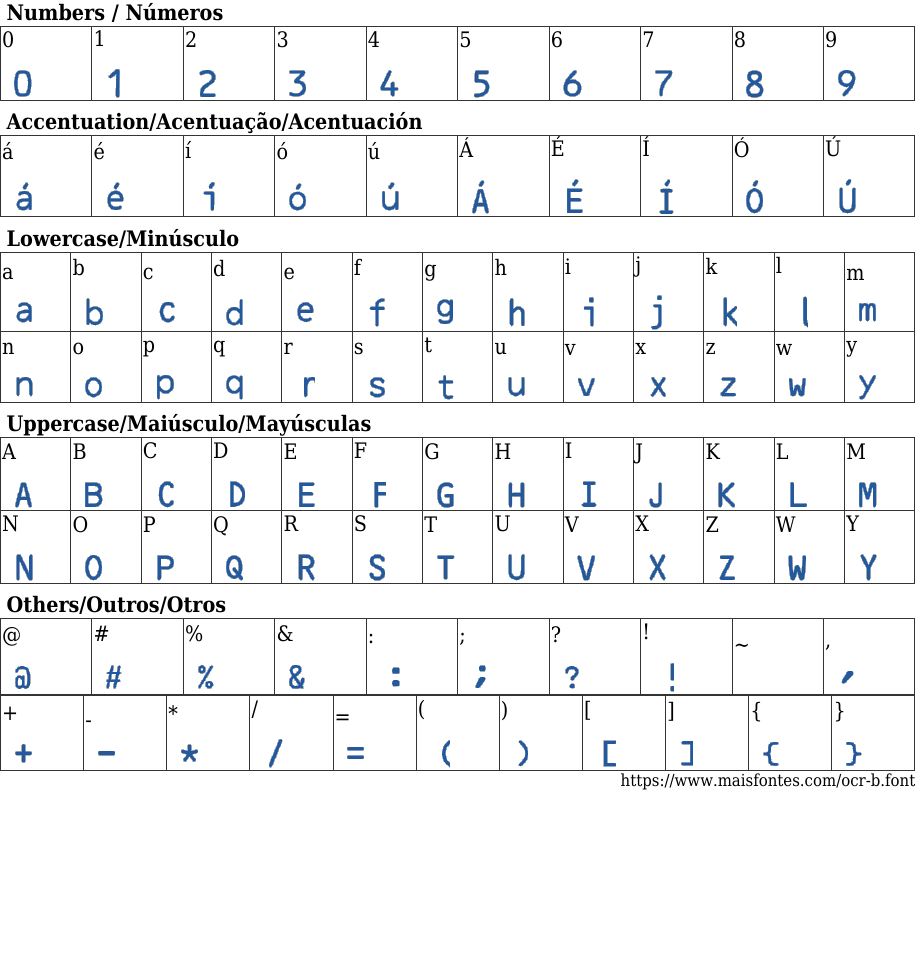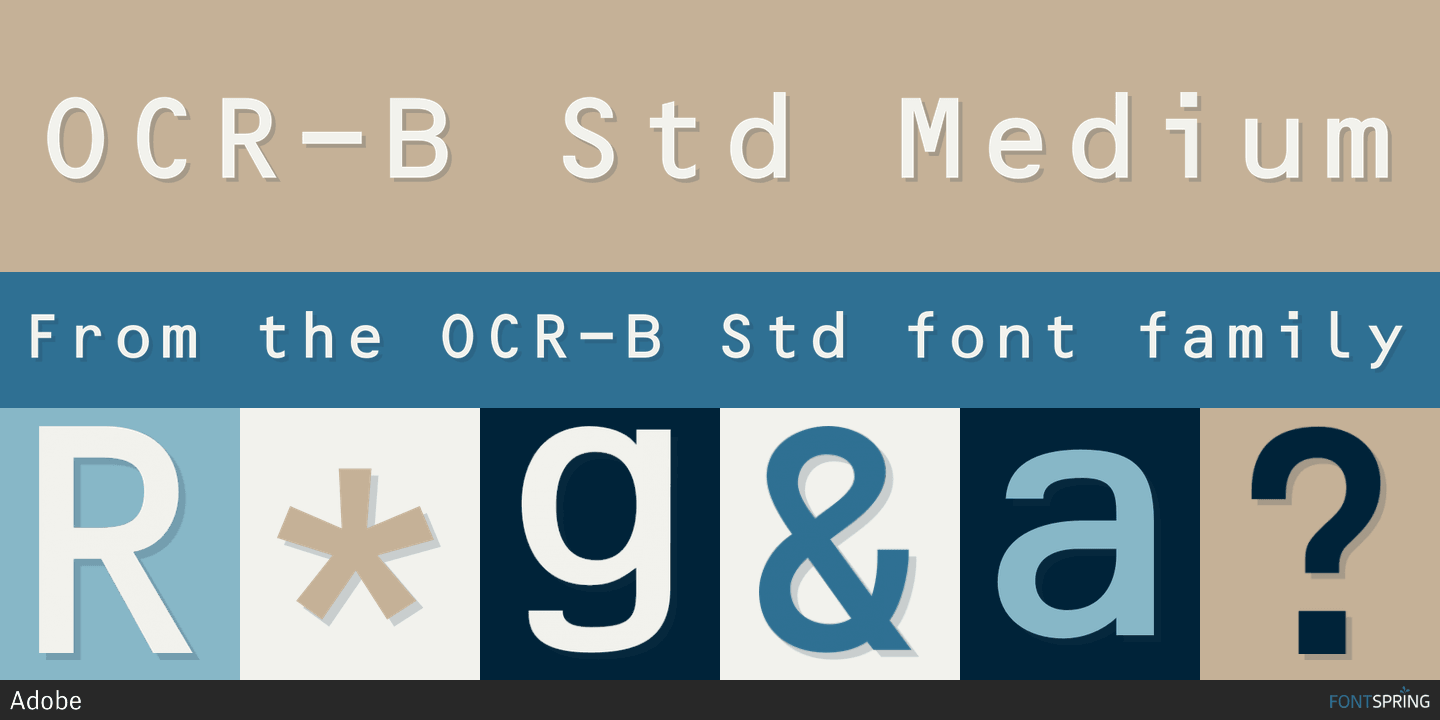
Ocr B Font - This design pushes the limits of the. It falls under the regular. Ocr b regular is an excellent choice of font for your playful designs.
Ocr b regular is an excellent choice of font for your playful designs. This design pushes the limits of the. It falls under the regular.
It falls under the regular. Ocr b regular is an excellent choice of font for your playful designs. This design pushes the limits of the.
This design pushes the limits of the. It falls under the regular. Ocr b regular is an excellent choice of font for your playful designs.
Ocr b regular is an excellent choice of font for your playful designs. This design pushes the limits of the. It falls under the regular.
Ocr b regular is an excellent choice of font for your playful designs. It falls under the regular. This design pushes the limits of the.
It falls under the regular. Ocr b regular is an excellent choice of font for your playful designs. This design pushes the limits of the.
It falls under the regular. This design pushes the limits of the. Ocr b regular is an excellent choice of font for your playful designs.
Ocr b regular is an excellent choice of font for your playful designs. This design pushes the limits of the. It falls under the regular.
It falls under the regular. This design pushes the limits of the. Ocr b regular is an excellent choice of font for your playful designs.
This design pushes the limits of the. Ocr b regular is an excellent choice of font for your playful designs. It falls under the regular.
Ocr B Regular Is An Excellent Choice Of Font For Your Playful Designs.
It falls under the regular. This design pushes the limits of the.